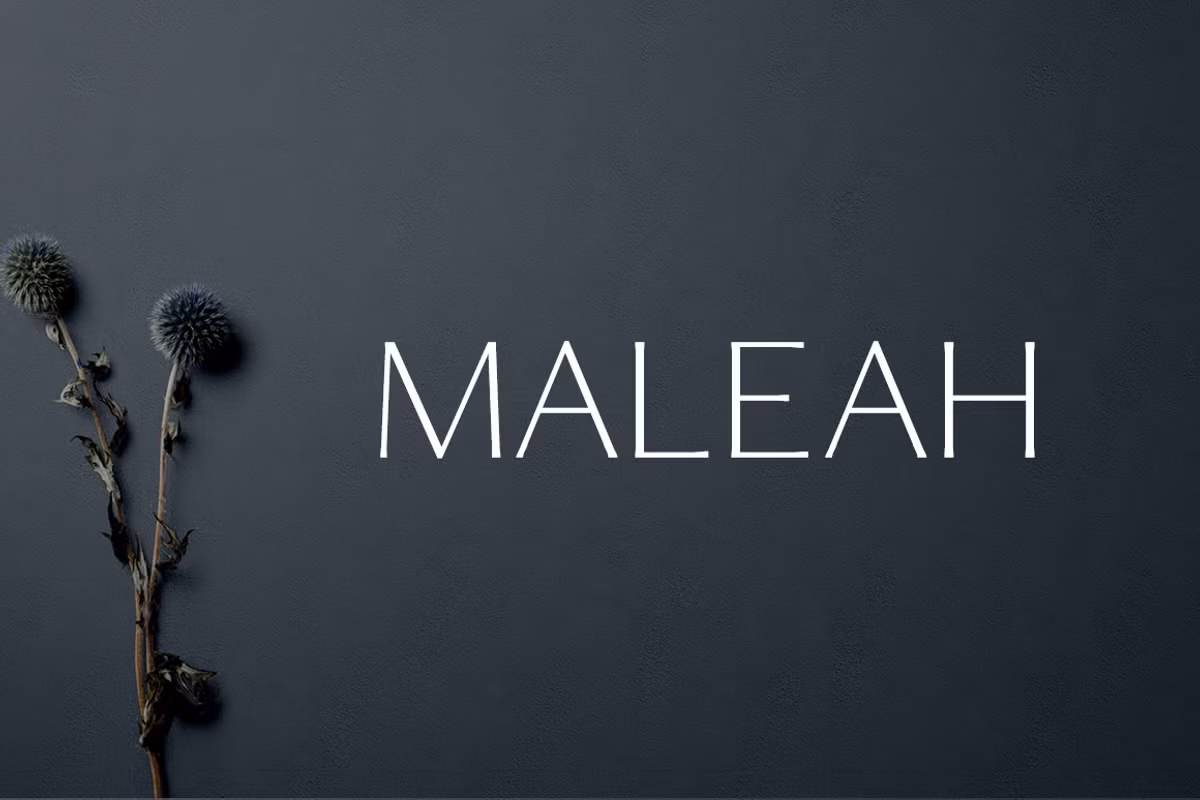
Maleah Sans Serif Fonts Family Pack Free Download is a sleek and modern typeface collection that blends minimalism with subtle elegance. With multiple weights and clean geometric forms, Maleah is perfect for branding, UI/UX design, editorial layouts, presentations, and any project that demands a polished, professional touch.
This font family’s versatility is its superpower—whether you're creating a bold headline or delicate body text, Maleah delivers perfect visual harmony. Its contemporary aesthetic makes it ideal for tech startups, fashion brands, and creative studios looking to elevate their identity with style and clarity.
Give your projects a modern voice with Maleah Sans Serif Fonts Family Pack Free Download. Test it in personal use and experience how this font family can bring structure and sophistication to your typography game.